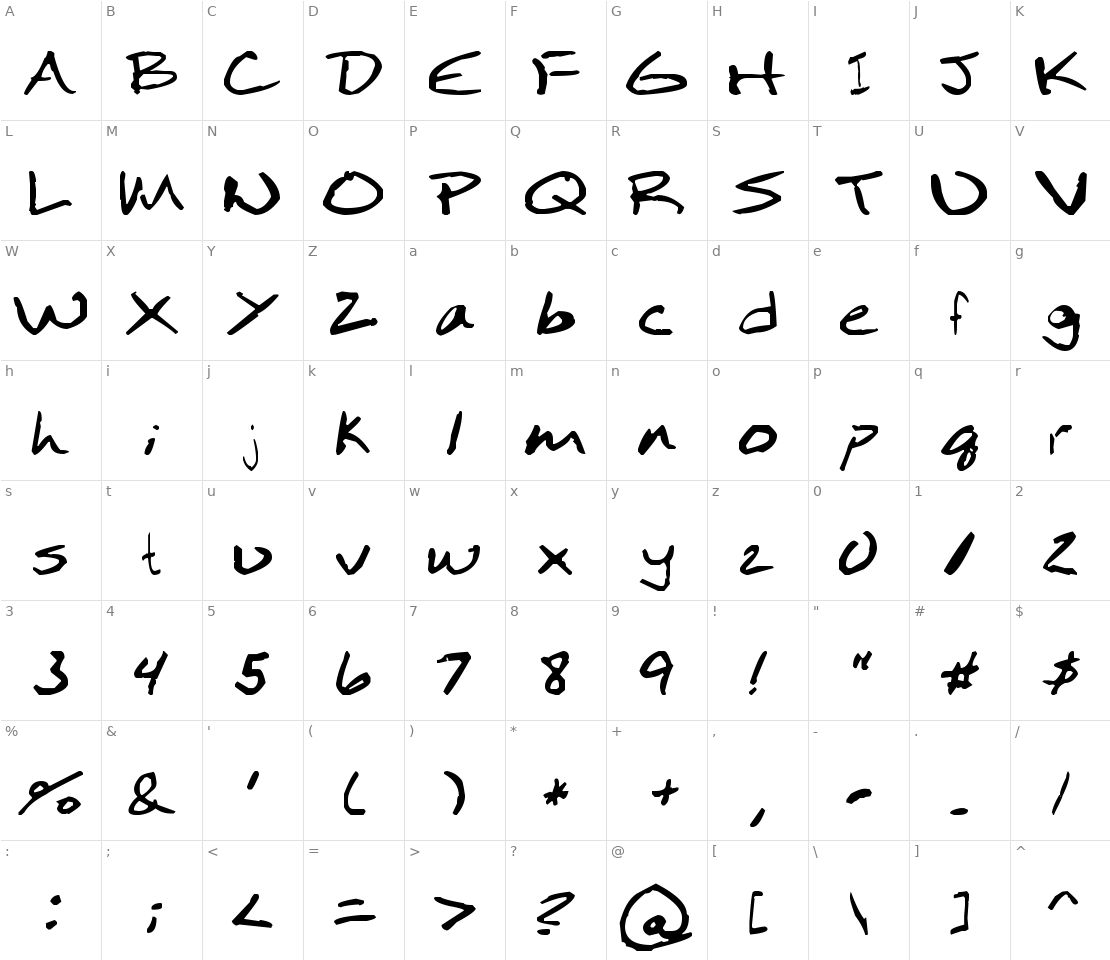
Moodica
by Larry Moody
Moodica is a loose, ink-heavy handwritten face from Larry Larrry Moody that captures the uneven pressure and natural wobble of a real marker on paper. The strokes vary in weight and alignment, giving each letter an informal, slightly rough character that feels authentic rather than manufactured. Best as a display face for headlines, packaging, or personal projects where you want something that reads like actual handwriting with some grit to it.